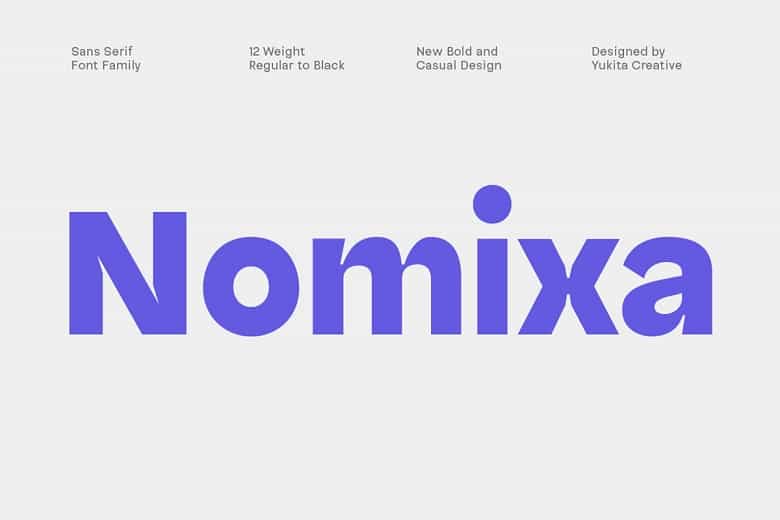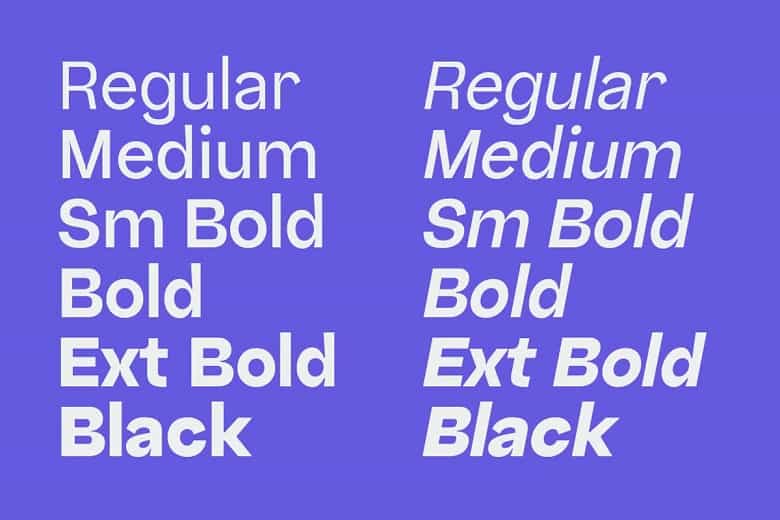
Nomixa is a modern bold sans-serif font family designed to ensure that your designs are noticed. All in all, it has 12 weights, which includes italic – this makes the font very versatile and perfect for creating both, simple and catchy modern designs.